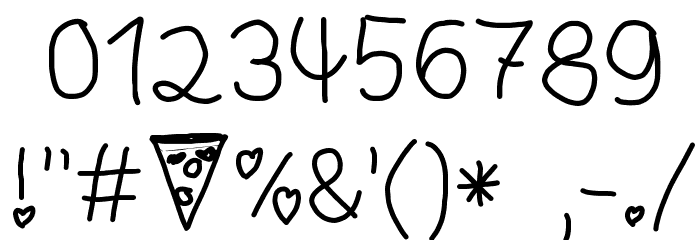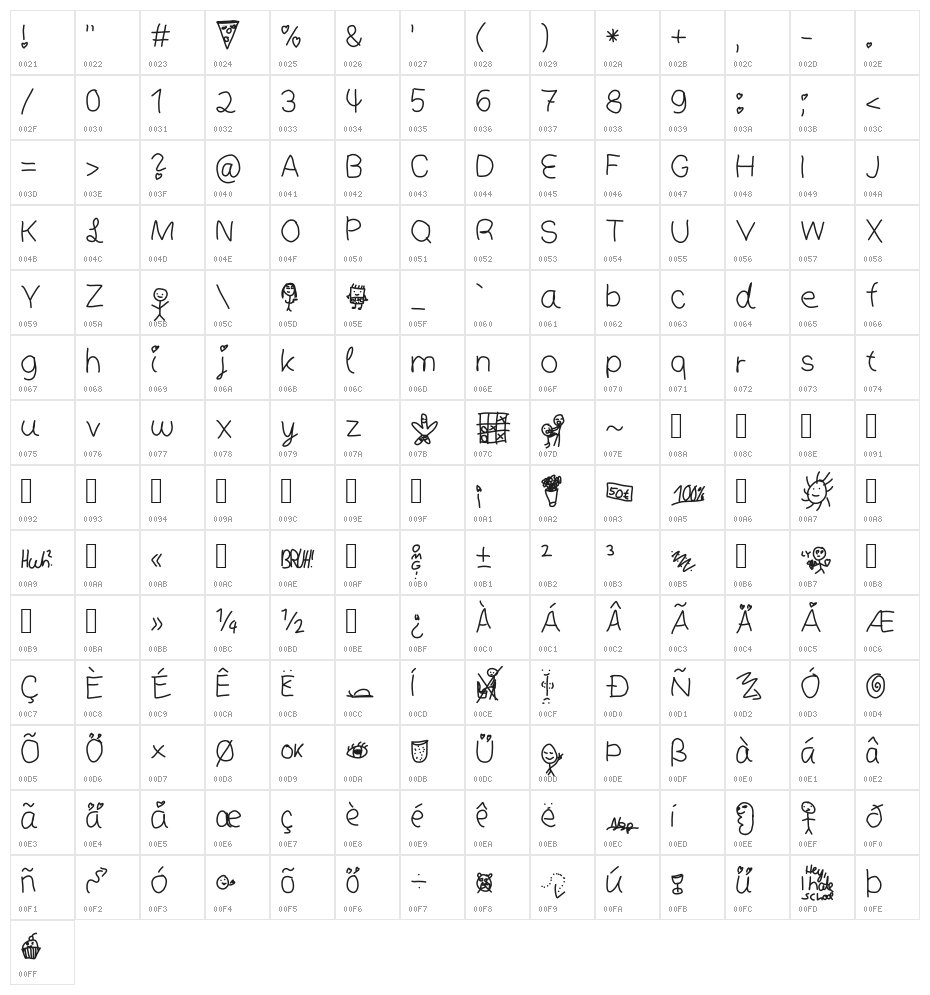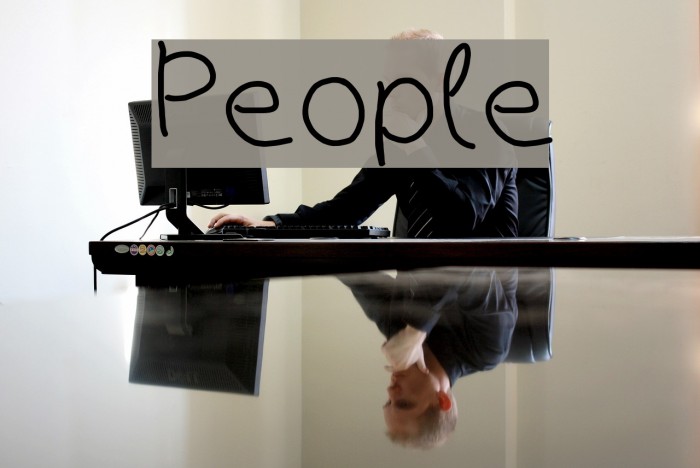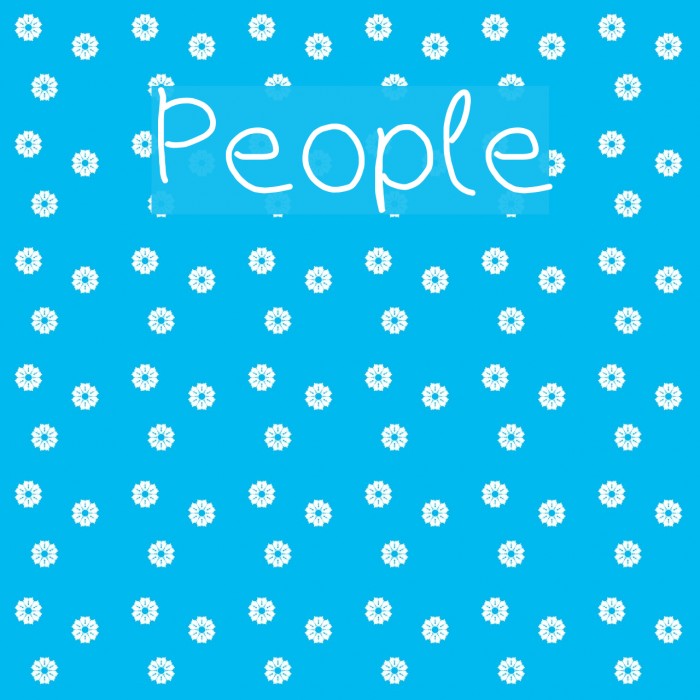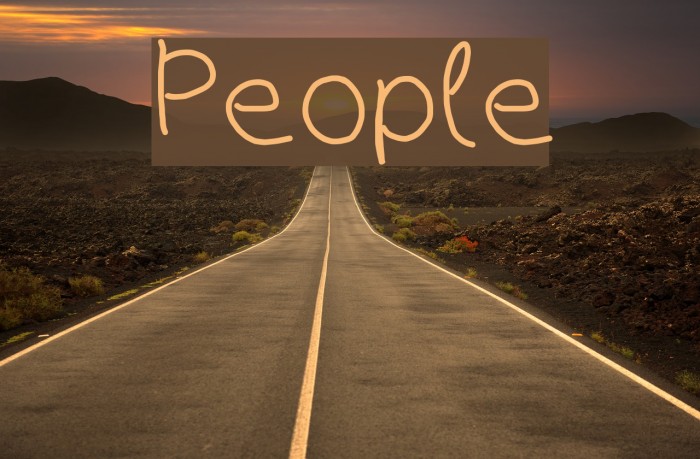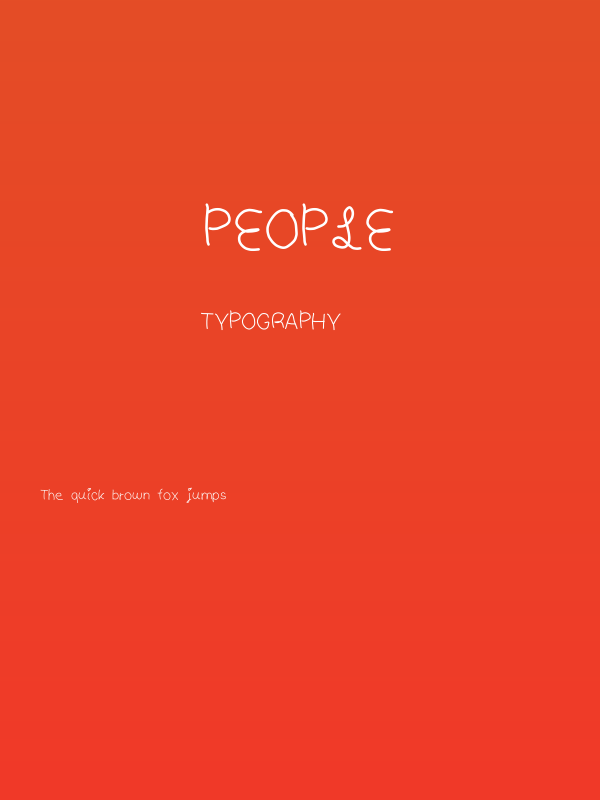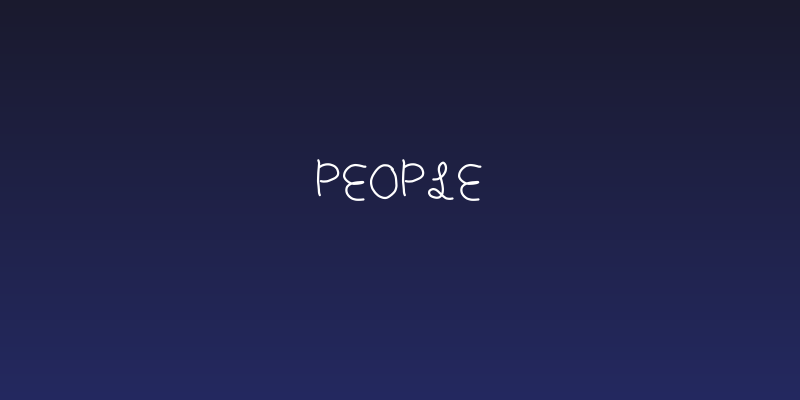
People Font
People Description
This playful and whimsical font features a handwritten style with a casual and friendly appearance. The characters are slightly irregular, adding a personal touch and charm. The uppercase letters are bold and distinct, while the lowercase letters include unique elements like small hearts above the 'i' and 'j'. The numbers are rounded and easy to read, maintaining the font's overall playful aesthetic. Special characters are creatively designed, incorporating fun elements such as hearts and triangles. This font exudes a sense of fun and creativity, making it perfect for projects that require a lighthearted and informal tone.
Overall StylePlayful
Use CaseHeadlines, Logos, Informal Text
Proposed ProjectsIdeal for children's books, greeting cards, playful branding, and informal invitations.